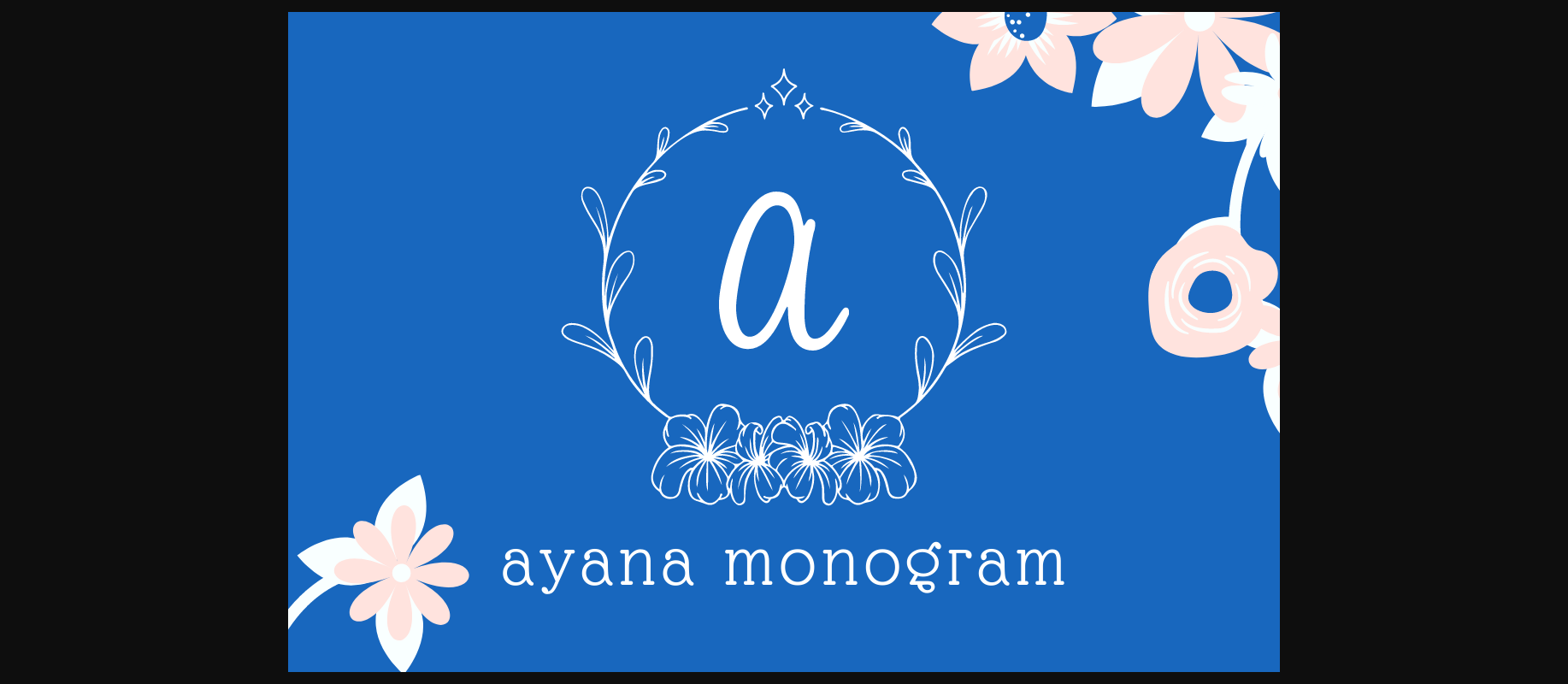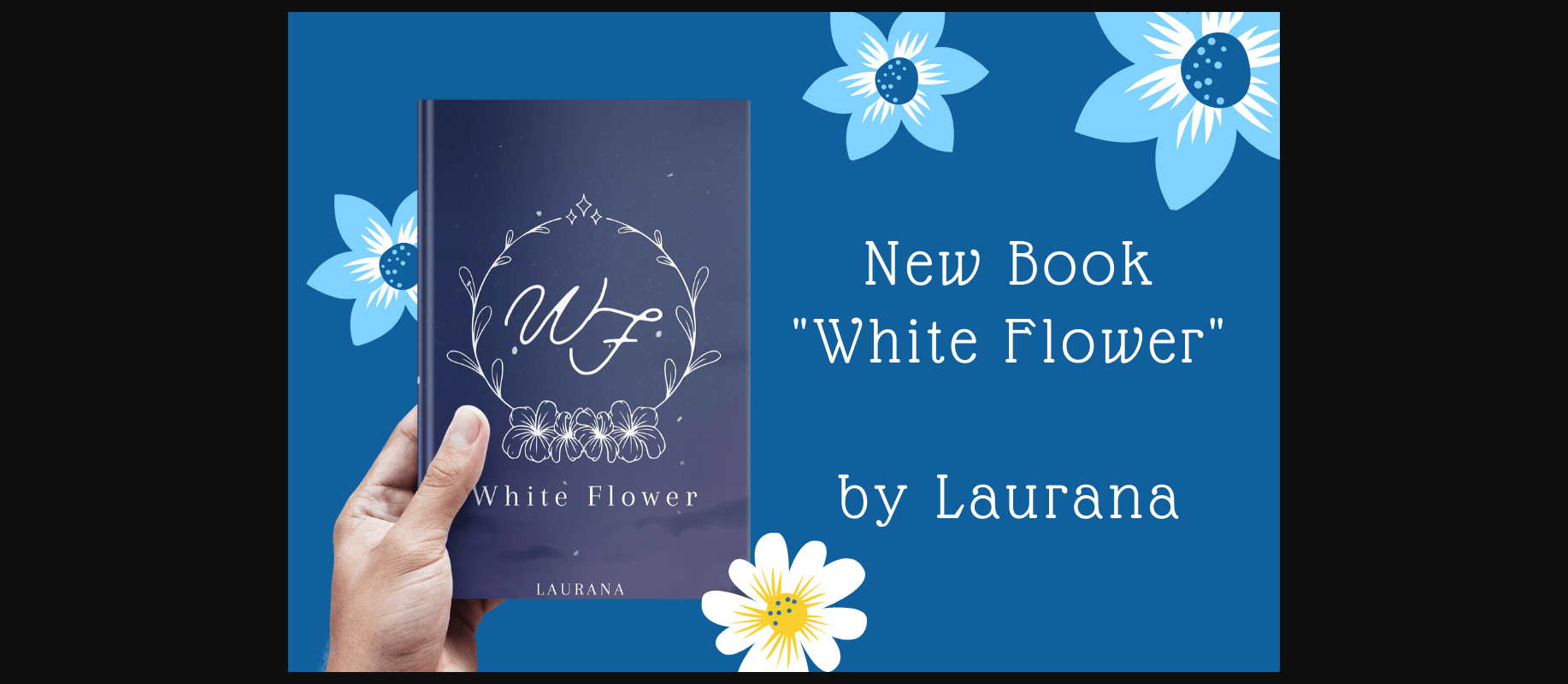
About Ayana Monogram Font
Ayana Monogram is a flower monogram font. Fall in love with its lovely characters, and use them for your special occasions, business designs, logos, branding, social media posts, and wedding cards. Just simply change between uppercase and lowercase to see the different styles!